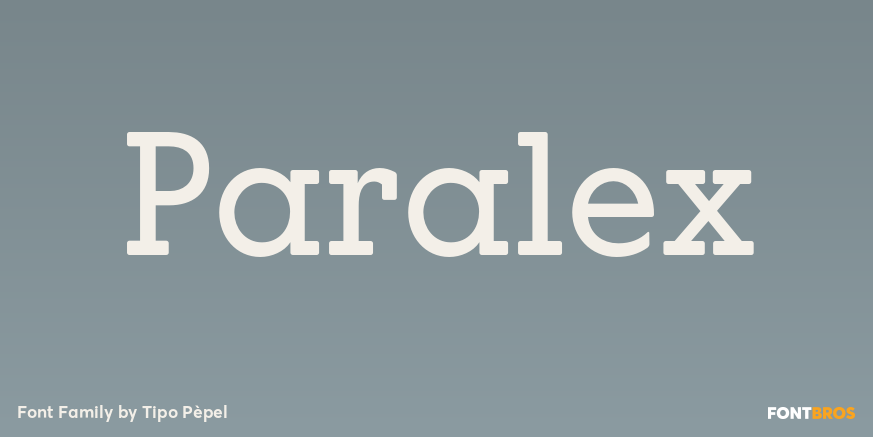
Paralex
About Paralex
Paralex is a complete typeface family of 12 fonts with geometric-slab style. The edges of shapes are rounded to give a smoother appearance. It contains several OpenType functionality, such as initial and final decorative forms, old style numerals and…